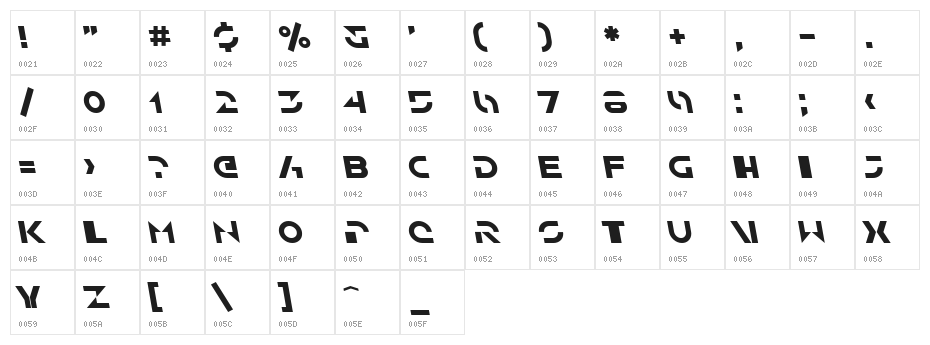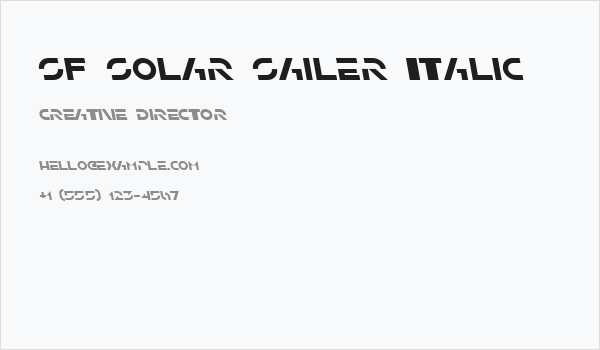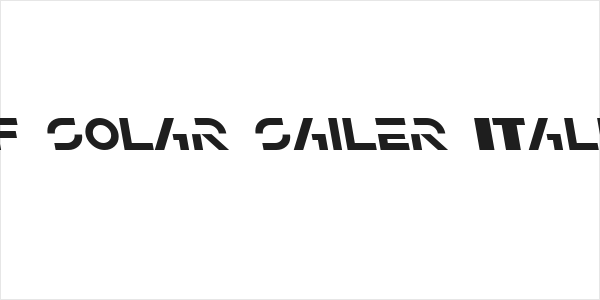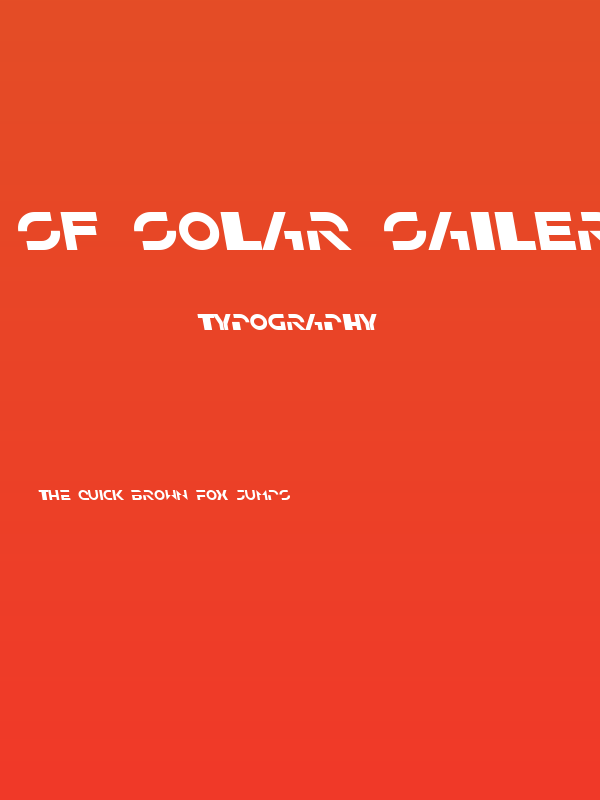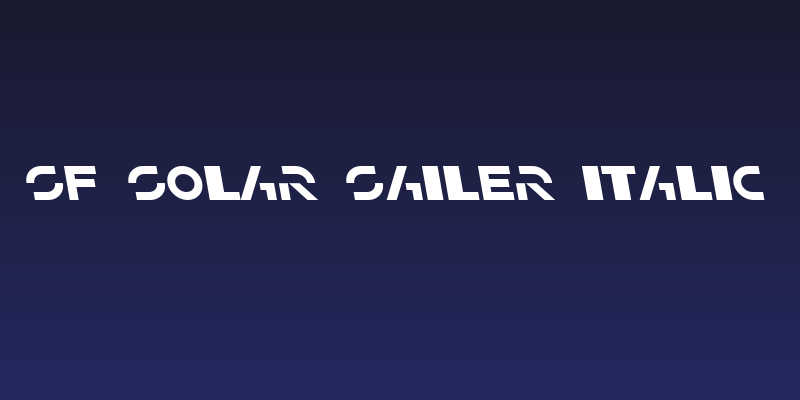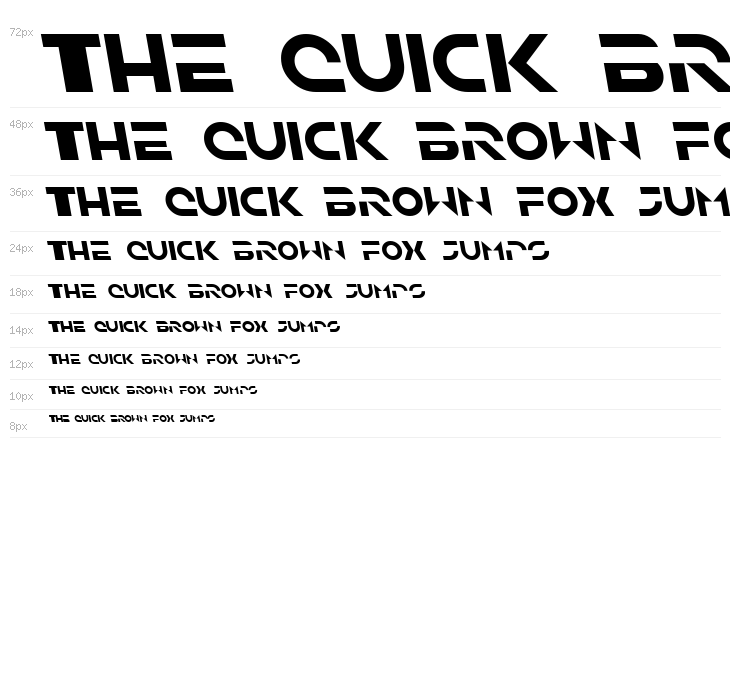
SF Solar Sailer Italic Font
SF Solar Sailer Italic Description
This font features a futuristic and angular design, characterized by its bold and geometric letterforms. The characters exhibit a unique blend of sharp edges and smooth curves, creating a dynamic and modern aesthetic. The italic style adds a sense of motion and speed, enhancing its futuristic appeal. The font includes a full set of uppercase and lowercase letters, numerals, and a variety of special characters. Its distinct style makes it suitable for projects that require a modern and edgy look.